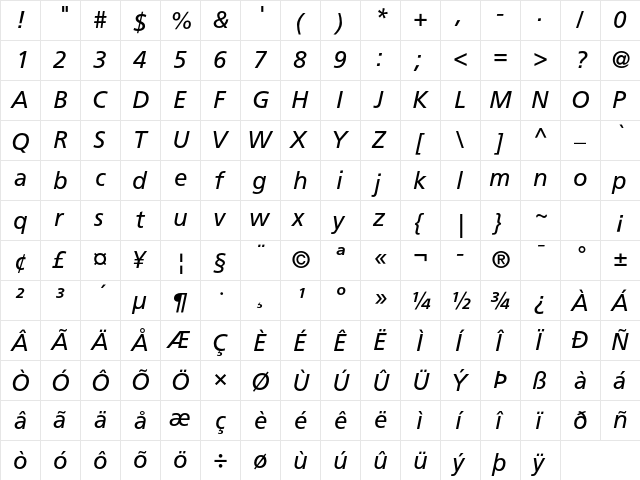
Frutiger LT Std 56 Italic Font Preview
| Designer | Adrian Frutiger |
Design Context for Frutiger LT Std Typeface
Frutiger LT Std takes a measured approach to typography — its balanced proportions and neutral character make it a reliable workhorse for both digital and print work. Its italic angle brings a sense of urgency and motion to the letterforms. Its slender proportions lend an understated elegance to any composition.
Pro Tip: Try Frutiger LT Std for annotation and caption copy alongside an upright companion — the contrast in angle creates a dynamic but ordered typographic system.